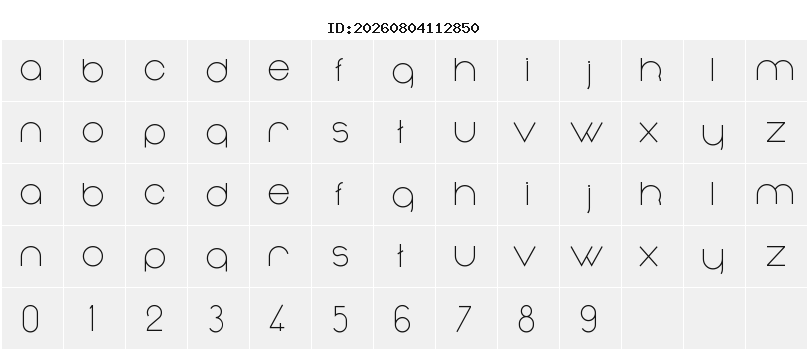
Nonchalance Preview
• Font Name: Nonchalance
• Full Font Name: Nonchalance
• Version: Version 1.00 March 11, 2016, initial release
• Designer: Antoine Colombeau
About Nonchalance.otf
Nonchalance.otf is a modern, elegant sans-serif font designed for ultimate readability and visual harmony. Perfect for branding, headlines, web design, and print materials.